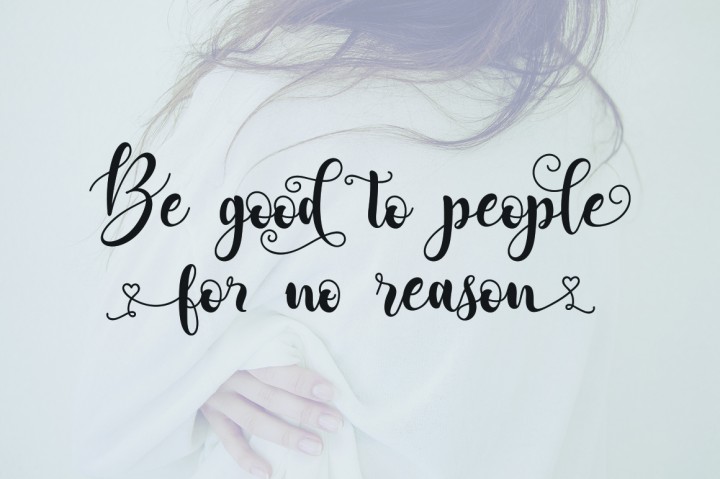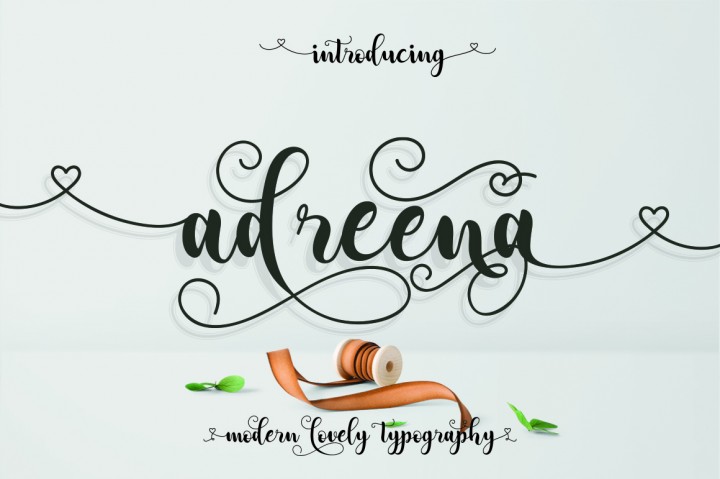
Adreena Script font that is made with love, Adreena script is suitable for branding, invitation, t-shirt, mailing, greeting, wedding and other suitable design you want.